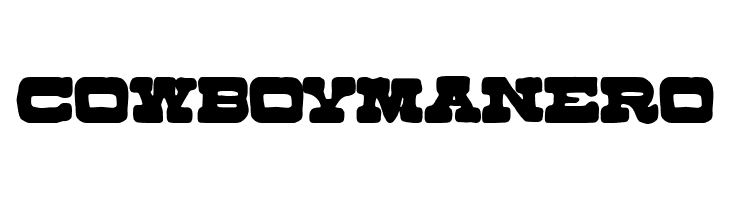
A dynamic, italicized font with angular, futuristic design elements.
A bold, distressed font with a rugged, vintage Western style.
A bold, distressed font with a unique halftone pattern for a rugged, dynamic look.
A bold, hand-drawn style font with thick, uneven strokes and a dynamic, energetic feel.
A bold, futuristic font with sharp, angular edges and a geometric style.
A bold, playful font with a Western-inspired, handcrafted look.
A bold, decorative font with bifurcated serifs and intricate designs.
A decorative bifurcated font with a bold, Western-inspired style.
A bold, distressed font with a vintage Western style.
A playful, decorative font with cowboy-themed illustrations inside bold letters.
A rugged, rope-like font with a Western, handcrafted style.
A playful, bold handwritten font with rounded, irregular letterforms.
A bold, cursive script font with a dynamic and fluid style.
Bold, decorative western-style display font with irregular, blobby edges.
Western-themed pictogram font with detailed illustrations for each character.
A bold, Western-style font with thick, angular serifs and a strong presence.
A bold, decorative font with characters set in cowboy-themed silhouettes.
A bold, decorative font with cowboy hat motifs integrated into each letter.
A bold, Western-themed font with cowboy hats on each letter.
A bold, Western-inspired font with thick strokes and decorative cut-out shapes.
A bold, artistic font with structured forms and intricate internal details.
A decorative Western-themed font with intricate cowboy and horse illustrations within each character.